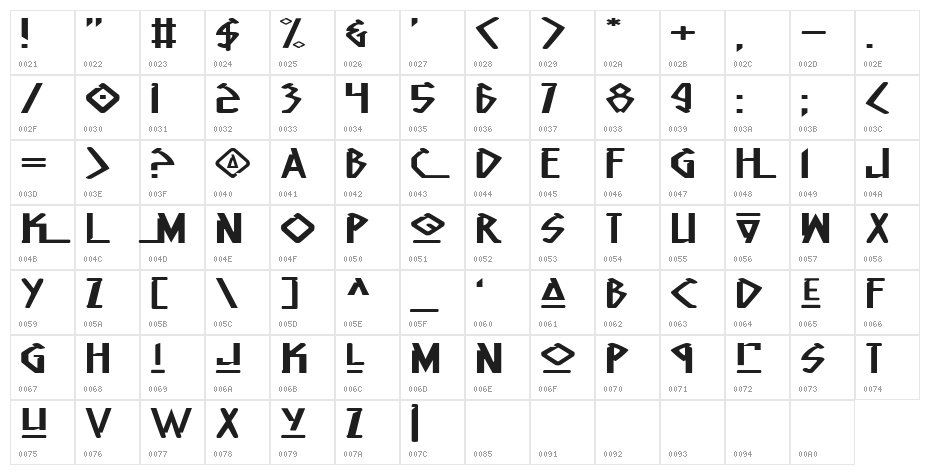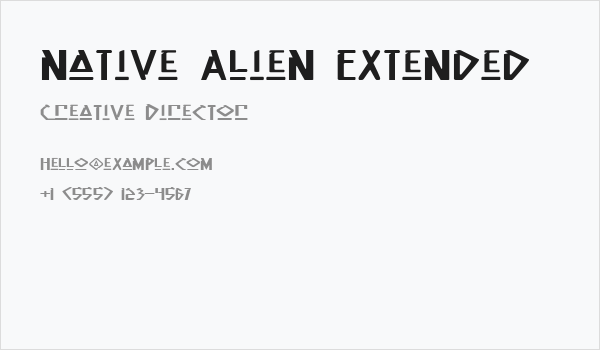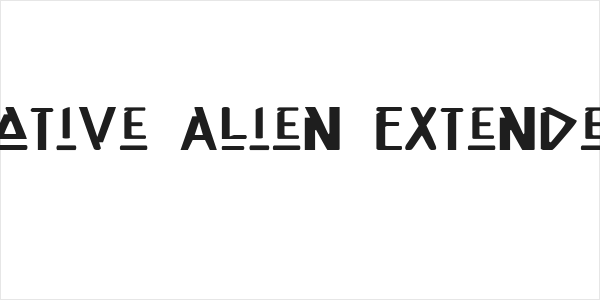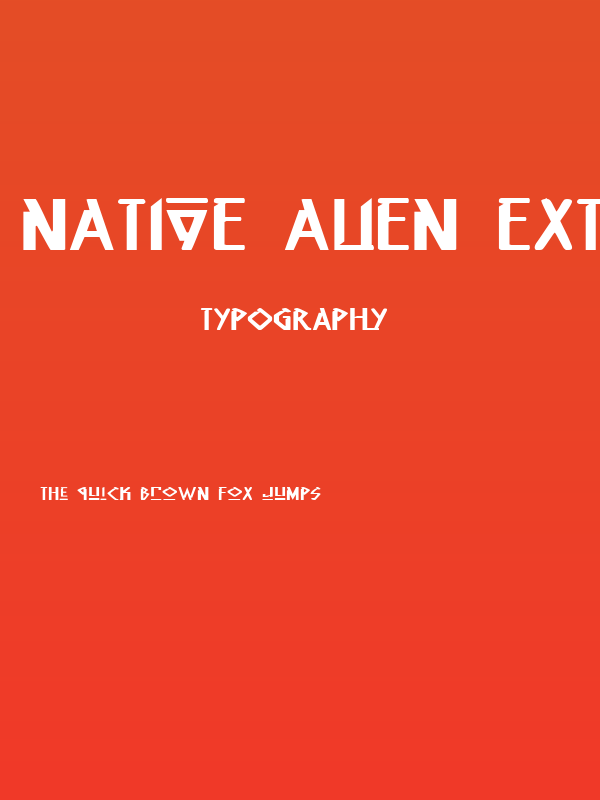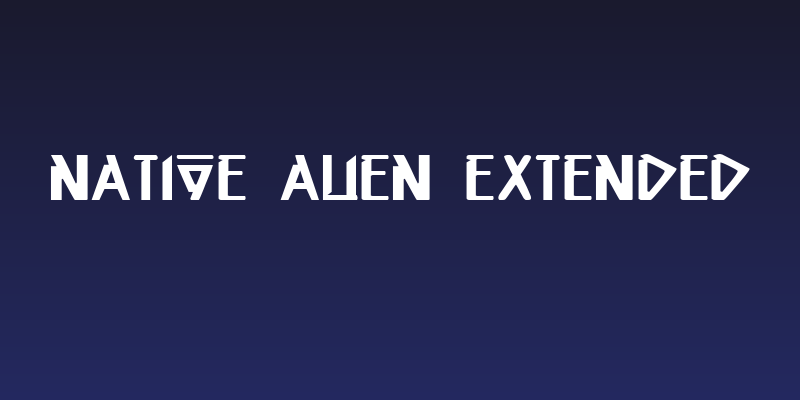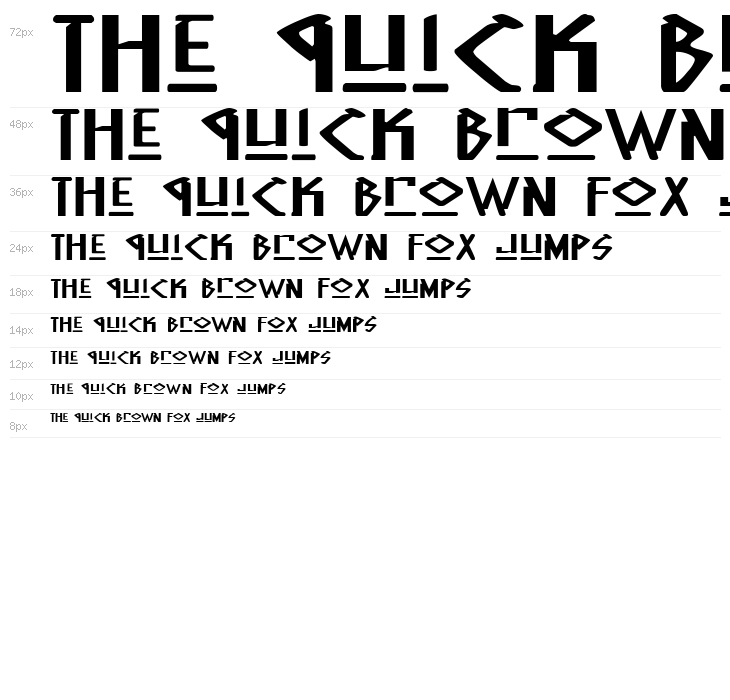
Native Alien Extended Font
Native Alien Extended Description
This font features a futuristic and geometric design, characterized by its angular and bold letterforms. The uppercase and lowercase letters share a consistent style, with sharp edges and unique cutouts that give it a distinct, alien-like appearance. The numerals and special characters maintain this theme, offering a cohesive look across all glyphs. The font's extended width and strong presence make it ideal for attention-grabbing designs. Its unique style is reminiscent of science fiction and modern digital aesthetics.